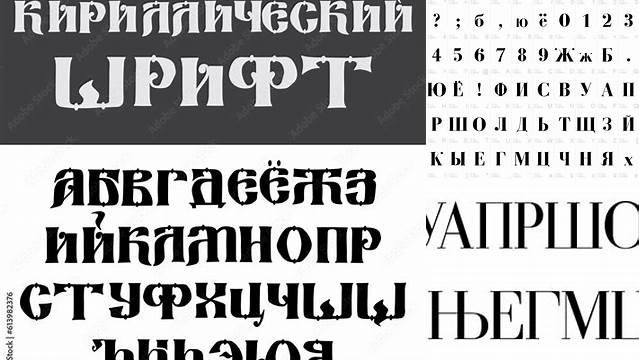
Russian Fonts: Enhance Windows 10 With Cyrillic
Hey guys! Ever wanted to give your Windows 10 that cool Russian flair? Or maybe you're working on a project that requires Cyrillic script? Well, you've come to the right place! Let's dive into everything you need to know about russian fonts for windows 10, from installing them to using them like a pro.
Understanding Cyrillic and Its Importance
Before we jump into the fonts themselves, let's quickly talk about Cyrillic. The Cyrillic alphabet is used by many Slavic languages, including Russian, Ukrainian, Bulgarian, and Serbian. It's a beautiful and historically rich script. If you're communicating with native speakers, studying these languages, or creating content for these audiences, having the right Cyrillic fonts is crucial. Not only does it ensure your message is accurately conveyed, but it also adds a touch of authenticity. Imagine designing a poster for a Russian film festival without proper Cyrillic fonts – it just wouldn't feel right, would it? Even if you're just aiming to add a unique aesthetic to your personal projects, exploring the world of Cyrillic fonts can open up a whole new realm of creative possibilities. So, understanding the nuances of this alphabet is the first step in making the most of russian fonts for windows 10.
Default Russian Fonts in Windows 10
Good news! Windows 10 comes with a bunch of default fonts that already support Cyrillic characters. This means you might not even need to install anything extra to get started. Arial, Times New Roman, and Calibri are your friends here. These fonts include Cyrillic glyphs, so you can type in Russian right away. To check if a font supports Cyrillic, open a program like Microsoft Word or Notepad, select the font, and try typing some Russian words. If the characters show up correctly, you're good to go! These default options are perfect for basic tasks and everyday use. However, if you're looking for something more stylish or specific to a particular design, exploring additional russian fonts for windows 10 can give you more options and a unique look. Think of the default fonts as your reliable, go-to tools, and the additional fonts as the specialized instruments that let you fine-tune your creative expression.
Typing in Russian on Windows 10
Okay, let's talk about how to actually type in Russian on your Windows 10 machine. First things first, you need to add the Russian keyboard layout. Head over to your Windows settings, click on "Time & Language," and then select "Language." Under the "Preferred languages" section, click "Add a language" and search for "Russian." Choose the specific Russian dialect you want to use. Once it's installed, you'll see a little language icon in your taskbar, usually in the bottom right corner of your screen. Click on that icon to switch between your different keyboard layouts. Select "Russian," and now your keyboard will type in Cyrillic. If you're not familiar with the Russian keyboard layout, you might want to use an online keyboard layout guide to help you find the right keys. There are also stickers you can buy to put on your keyboard keys to remind you where each Cyrillic letter is located. Once you get the hang of it, you'll be typing in Russian like a pro in no time! This is essential for effectively using russian fonts for windows 10.
Keyboard Layouts for Russian Fonts
Understanding keyboard layouts is key when you're working with russian fonts for windows 10. The standard Russian keyboard layout is called ЙЦУКЕН (JCUKEN), named after the first six letters on the top row. It's different from the QWERTY layout you're probably used to, so it might take some time to adjust. As we discussed earlier, you can add the Russian keyboard layout in your Windows settings. Once added, you can switch between layouts using the language icon in your taskbar or by pressing the Windows key + Spacebar. If you're struggling to remember where the letters are, there are a few things you can do. You can print out a keyboard layout diagram and keep it handy while you're typing. You can also buy keyboard stickers that show the Cyrillic letters. Another option is to use an on-screen keyboard, which displays the Cyrillic layout on your screen. With practice, you'll become familiar with the layout and be able to type in Russian without looking. Don't get discouraged if it feels awkward at first – it just takes a bit of practice!
Cyrillic Font Styles: Serif, Sans-Serif, and More
Just like Latin-based fonts, Cyrillic fonts come in all sorts of styles. Serif fonts, like Times New Roman, have little decorative strokes at the ends of the letters, giving them a classic and formal look. Sans-serif fonts, like Arial, don't have these strokes, making them look cleaner and more modern. There are also script fonts, which mimic handwriting, and decorative fonts, which are designed for special occasions. When choosing a russian fonts for windows 10, consider the purpose of your project. For body text, a clear and readable serif or sans-serif font is usually the best choice. For headings and titles, you can get away with something more decorative. Script fonts can add a touch of elegance to invitations or greeting cards. Experiment with different styles to see what looks best for your particular project. Remember to choose fonts that are not only visually appealing but also easy to read, especially if you're dealing with long passages of text. The right font style can greatly enhance the overall impact of your design.
Future Trends in Russian Font Design
As technology and design trends continue to evolve, the future of russian fonts for windows 10 is sure to be exciting. Here are some trends to watch out for: Variable fonts: These fonts allow for greater flexibility and customization, enabling designers to create fonts that adapt to different screen sizes and resolutions. AI-powered font design: Artificial intelligence is playing an increasing role in font design, with AI-powered tools helping designers create new and unique typefaces. Multilingual fonts: The increasing globalization of the world is driving demand for multilingual fonts that support a wide range of languages, including Russian. More expressive and decorative fonts: Designers are increasingly experimenting with more expressive and decorative fonts to create unique and eye-catching designs. Greater emphasis on readability: As the amount of text we consume online continues to grow, there will be a greater emphasis on readability and legibility. With these trends in mind, the future of Russian font design is sure to be innovative, creative, and impactful.